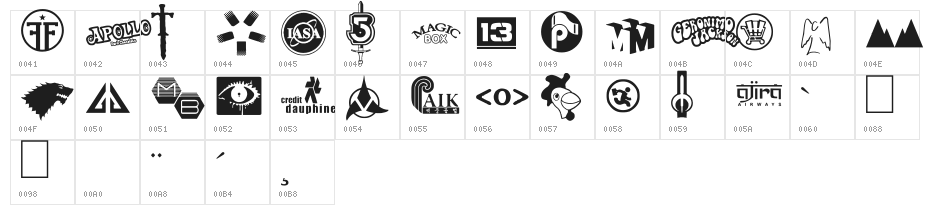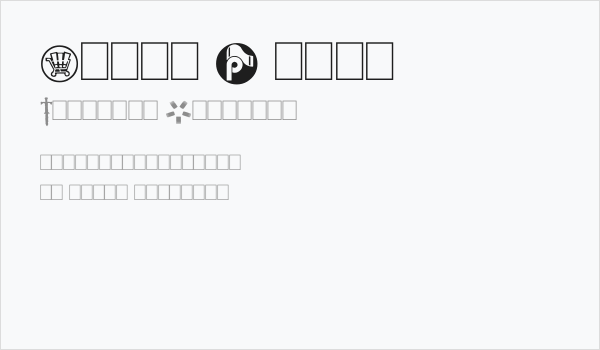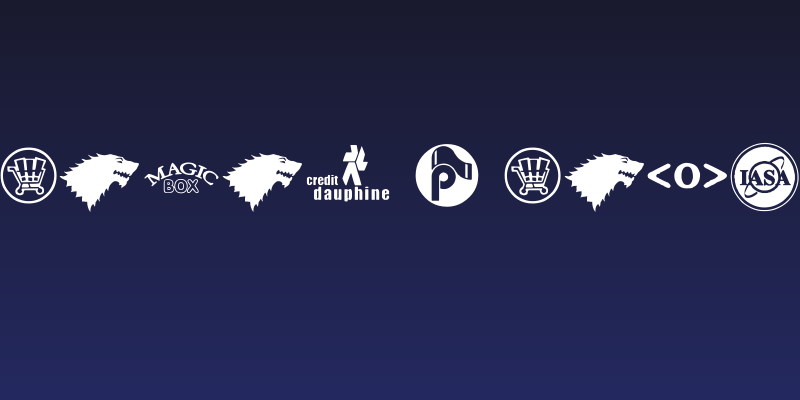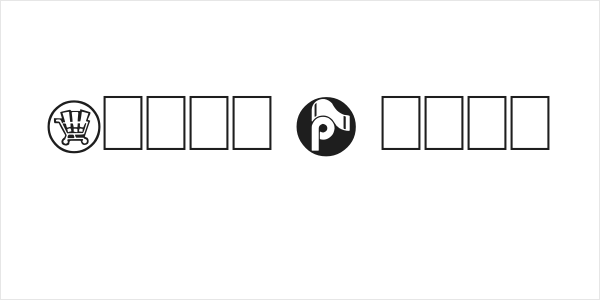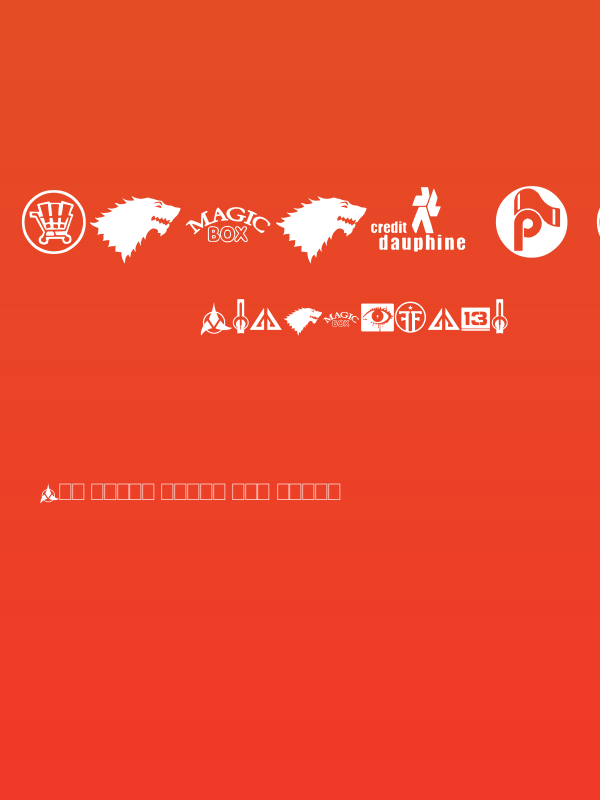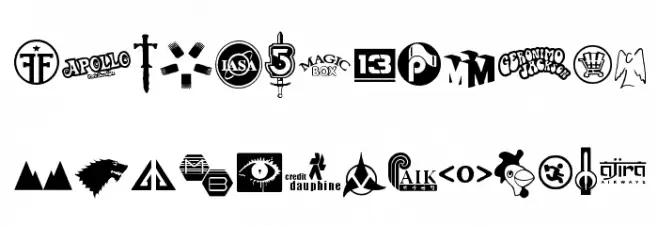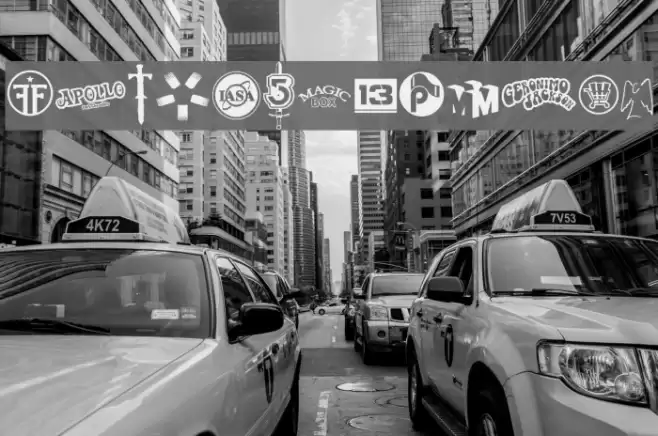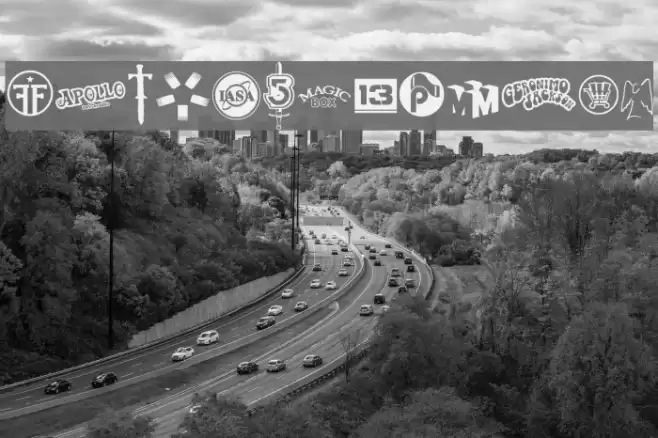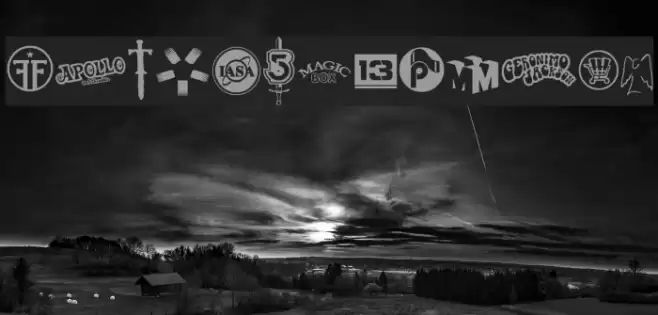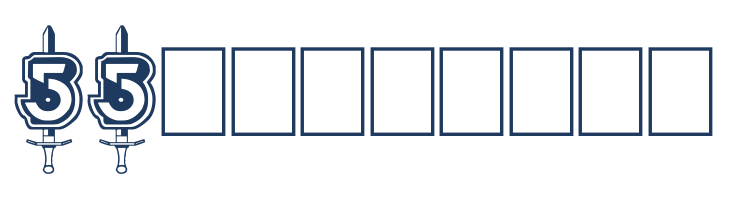
Logos I love Font
A collection of bold, geometric, and highly stylized logo glyphs, each with unique iconography and strong visual identity, ranging from abstract shapes to illustrative emblems. The set features a mix of thick and thin strokes, high contrast, and a variety of design motifs including sports, technology, and adventure themes.
| Overall Style | Decorative, Modern, Playful |
| Use Case | Logos, branding, merchandise, signage, posters |
| Proposed Projects | Branding, sports teams, tech startups, entertainment, apparel, adventure brands, and creative agencies. |